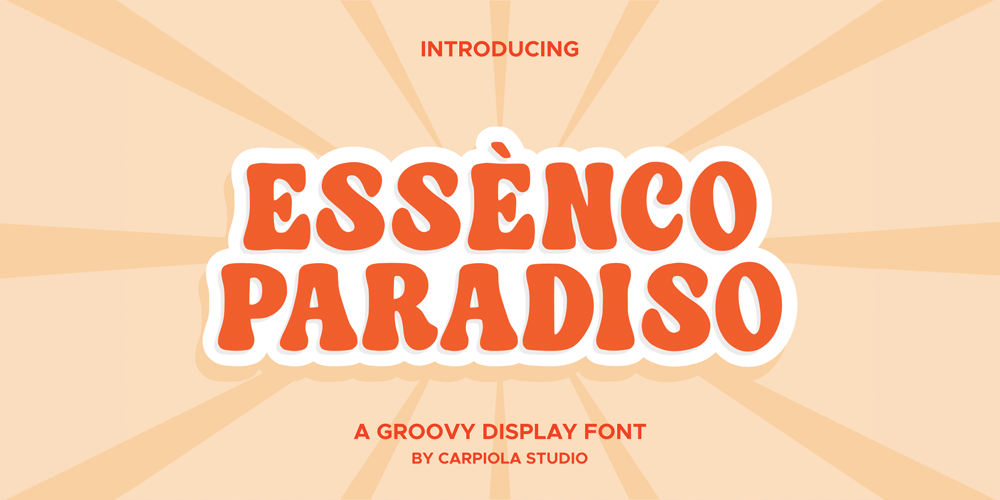
Essenco Paradiso Font Family was designed by Tegar Hafizhal, Robby Hermawan and published by Carpiola Studio. Essenco Paradiso contains 1 styles and family package options. Essenco Paradiso is a beautiful and timeless retro vintage-style display font. It is the best choice for creating eye-catching wall posters, logos, branding and quotes.Each letter has a unique and beautiful look, which will bring your designs to life with a playful touch.